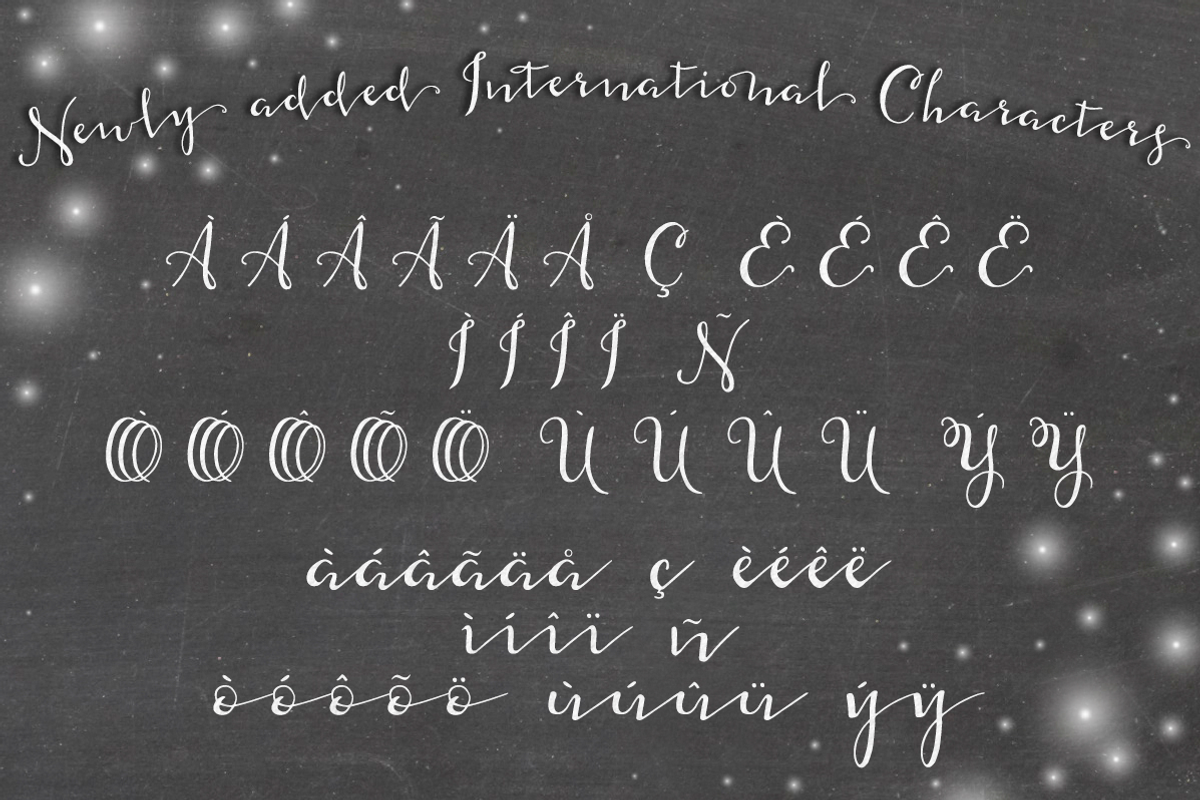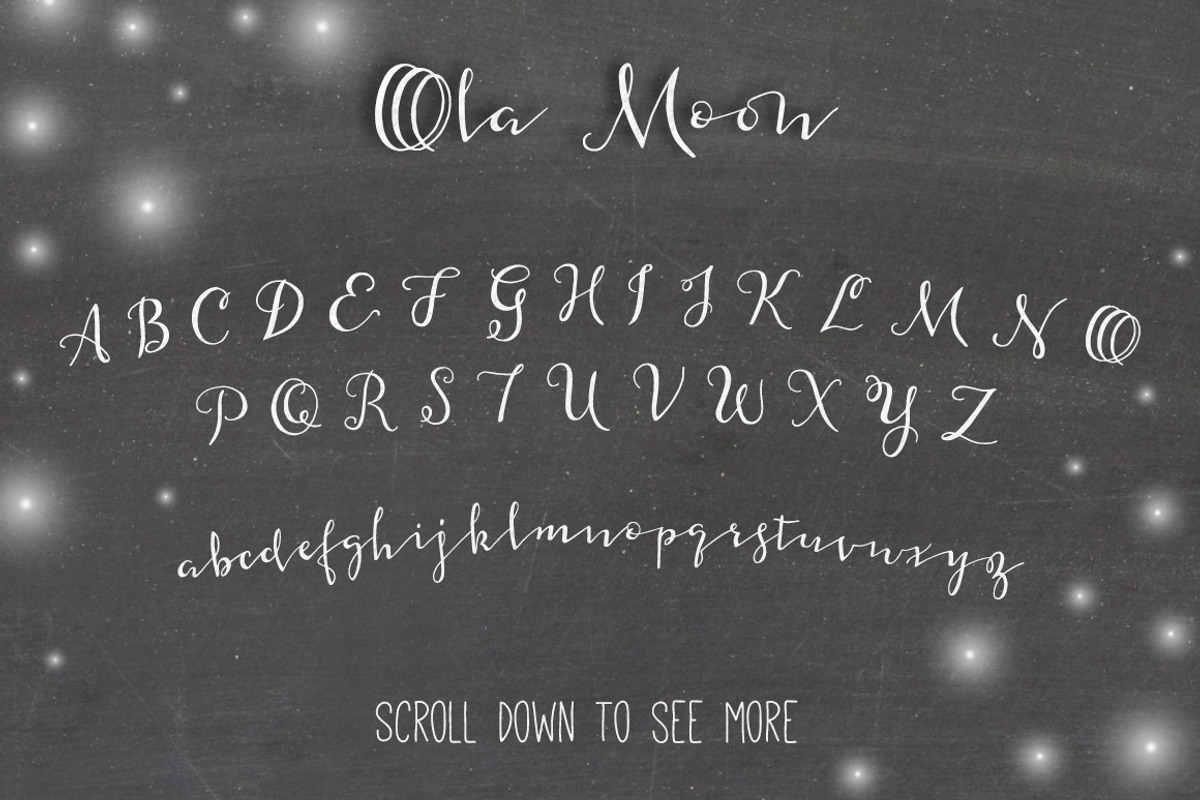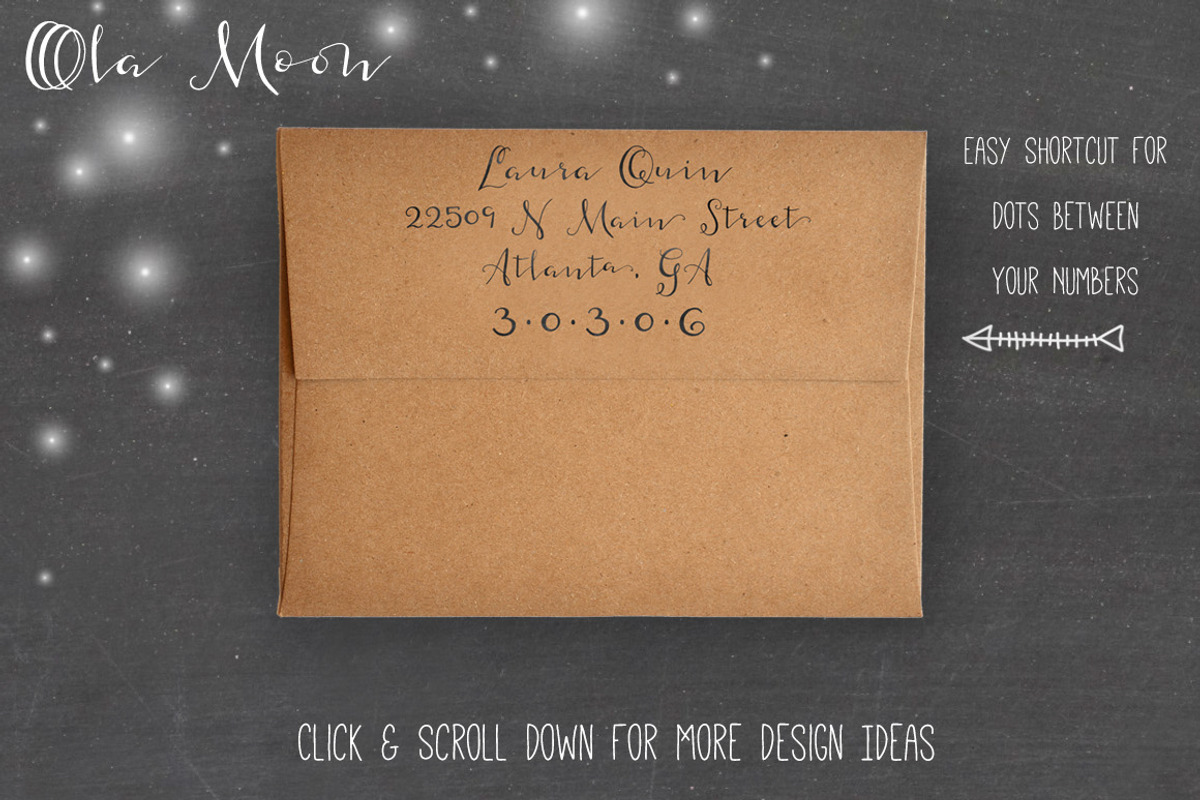
Ola Moon Typeface
Ola Moon Typeface by Seven Seas Design Co. is a font selected for branding, posters, packaging, typography.
- Ola Moon is a hand-lettered, modern calligraphy script font that includes some alternate characters, a few discretionary ligatures, and swas
Why Ola Moon Typeface is worth a look
Ola Moon Typeface by Seven Seas Design Co. fits naturally into Branding, posters, packaging, typography.